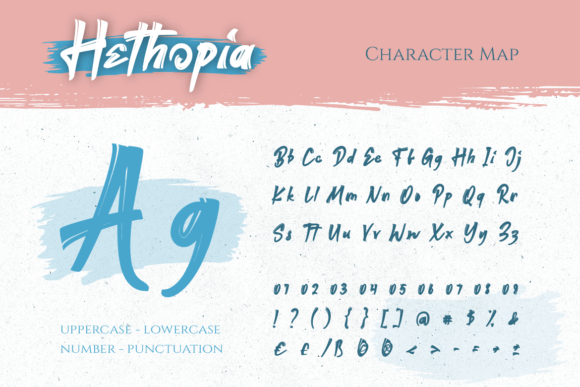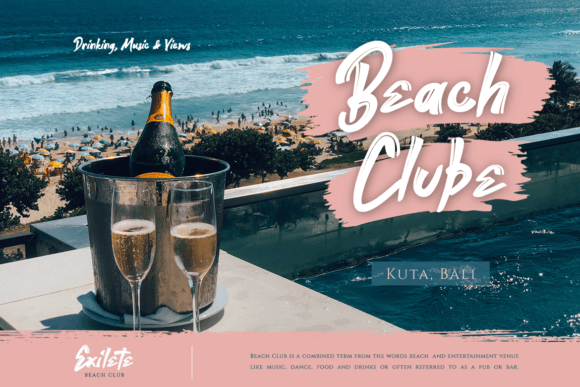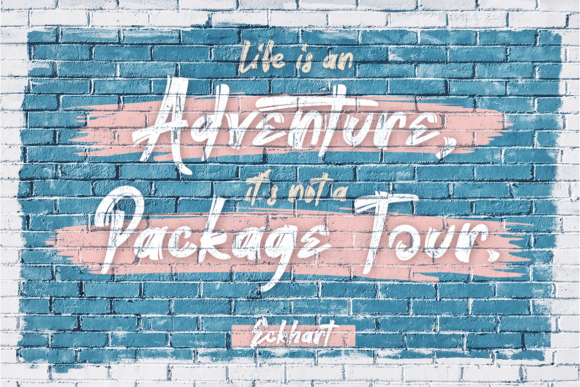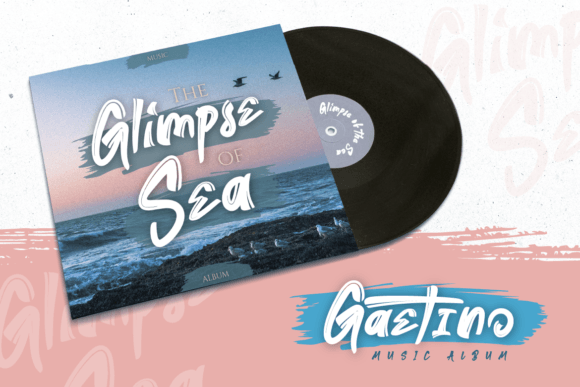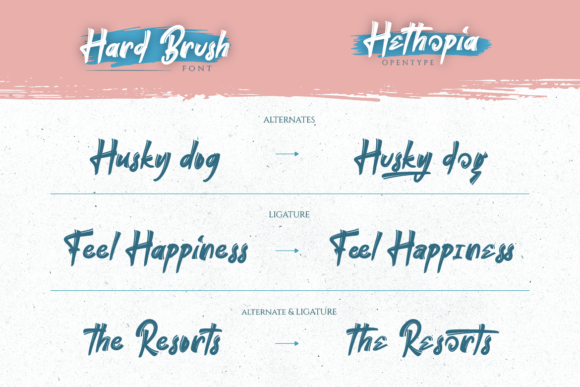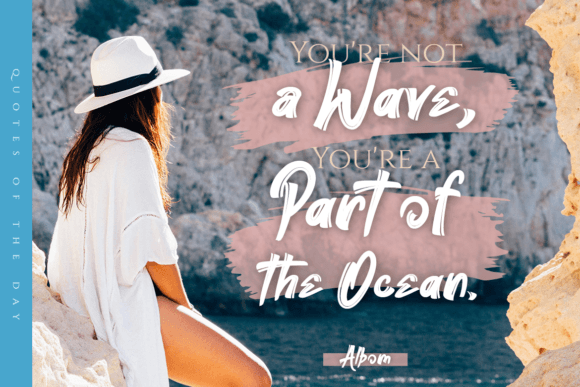
Introduction to Hethopia Font
Have you ever been working on a creative project, and just as you’re about to finalize it, you’re stuck on the perfect font to bring it all together? The struggle is real, but what if we told you there’s a game-changing solution that can elevate your design to the next level? Say hello to the Hethopia Font, a stunning bold brush grunge display font that’s about to become your new best friend.
Key Features of Hethopia Font
- High-quality design resource with a unique, creative touch, perfect for various design projects.
- Transparent background option, allowing for seamless integration with any design or image.
- Unique characteristics, such as bold lines and intricate details, set Hethopia Font apart from other design resources.
Honest Review: Hethopia Font
As a designer, I’m always on the lookout for high-quality design resources to enhance my creative projects. Recently, I came across the Hethopia Font, and I’m excited to share my honest review.
- ✨ High-quality glyphs: The Hethopia Font boasts a wide range of characters, including uppercase and lowercase letters, numbers, and punctuation marks.
- ✨ Unique design: The font’s quirky, handwritten style makes it perfect for adding a touch of personality to your designs.
- ⚠️ Limited language support: The font only supports a limited range of languages, which may not be ideal for international projects.
- ⚠️ Transparent background: Be cautious when using the font with transparent backgrounds, as the design may not render correctly.
Overall, the Hethopia Font is a great addition to any designer’s toolkit. While it has its limitations, its unique design and high-quality glyphs make it a worthwhile resource for creative projects.
Tips for Getting the Most Out of Hethopia Font
Experiment with different font sizes and colors to find the perfect combination for your design. Use the Hethopia Font in conjunction with other design elements to create a cohesive and visually appealing design. The Hethopia Font is a versatile font that can be used in a variety of creative projects, from graphic design to publishing.
The Hethopia Font is perfect for creating titles, headings, and body text for your design projects. It’s also great for creating logos, business cards, and other marketing materials. The Hethopia Font is a great resource for designers, artists, and anyone looking to add a touch of elegance and sophistication to their creative project.